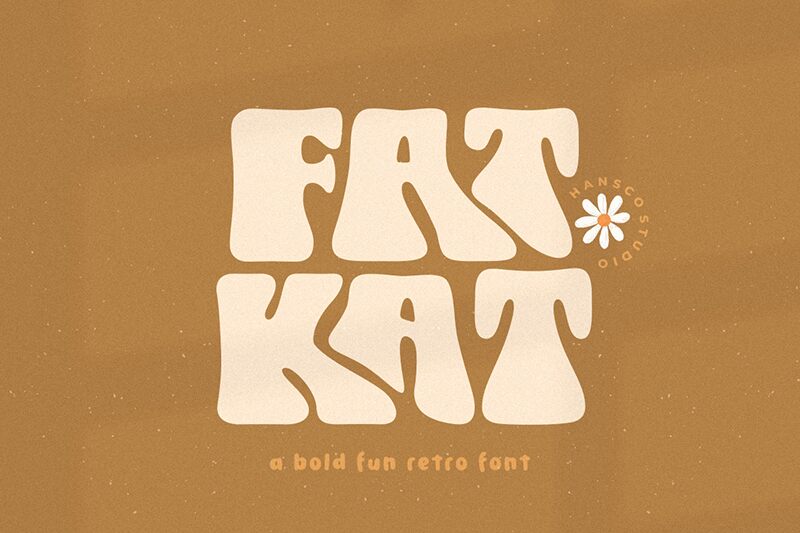
Fat Kat
Fat Kat font designed by HansCo is bold groovy display font with a playful mood and retro aesthetic. It delivers rounded shapes and organic forms that assemble together to give blocks of text a casual appearance. The vintage design is trendy again, so take full advantage of this wonderful opportunity by downloading this free font.
\nUse Fat Kat for both small and large size displays in headlines, magazine covers, flyer and poster titles, billboards, social media ads., or book covers. Multiple clothing brands can use it in their logos or they further promote their businesses using beautiful apparel tags with colorful printing!